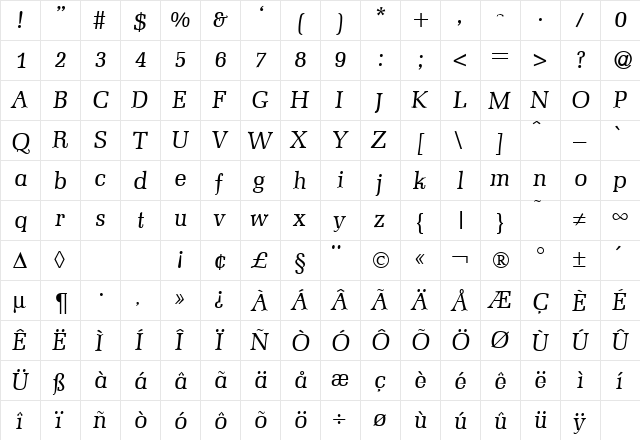
Melmac RegularItalic
Design Context for Melmac Typeface
Melmac takes a measured approach to typography — its balanced proportions and neutral character make it a reliable workhorse for both digital and print work. The slanted form adds forward momentum and visual energy.
Pro Tip: Try Melmac for annotation and caption copy alongside an upright companion — the contrast in angle creates a dynamic but ordered typographic system.